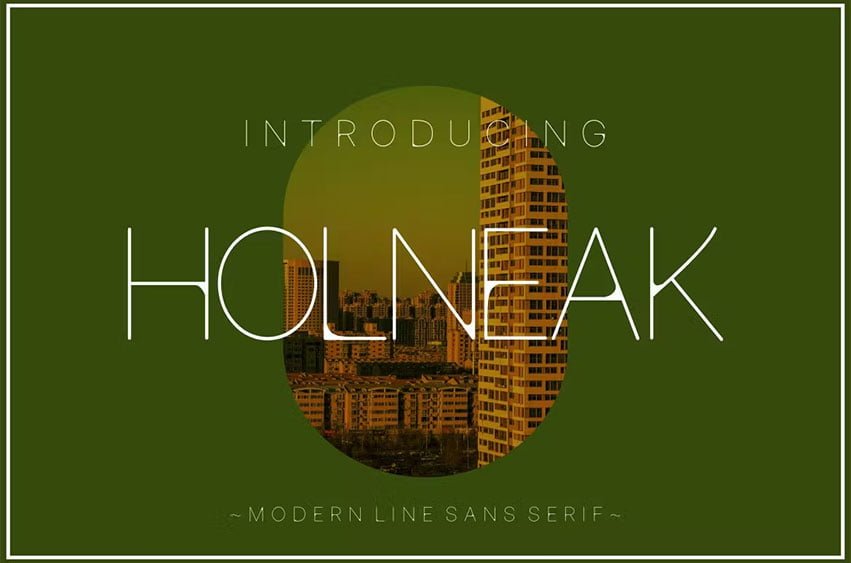
Holneak Font elegant simple and modern Sans serif font. The feel is elegant and beautiful. This font brings you a beautiful and modern atmosphere. suitable for posters, book covers, cards, merchandise, etc.